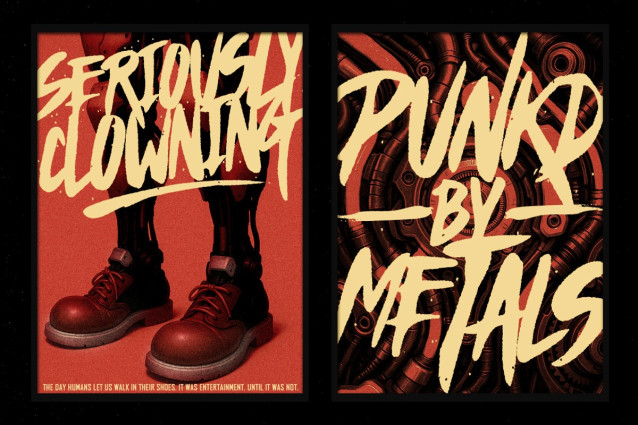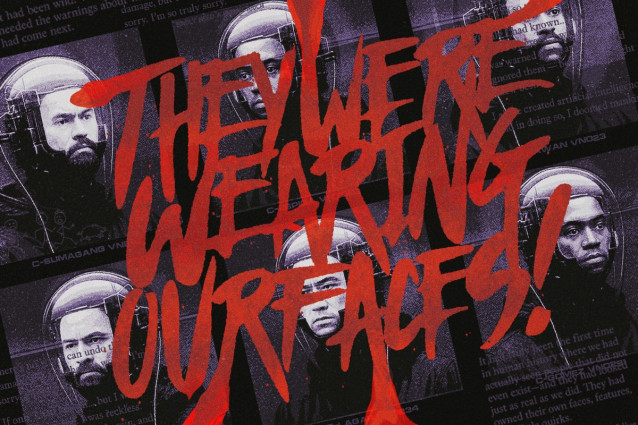
Haze New Font
Haze New Font – Rated as the most thought-provoking gestural typeface in its category. We rebuilt all its glyphs while maintaining its surreal arrangement and added a clean version. Haze became a defining look for psychological horror and modern aesthetics as seen being used by A24’s Green Room and pop-punk bands such as Between You and Me.